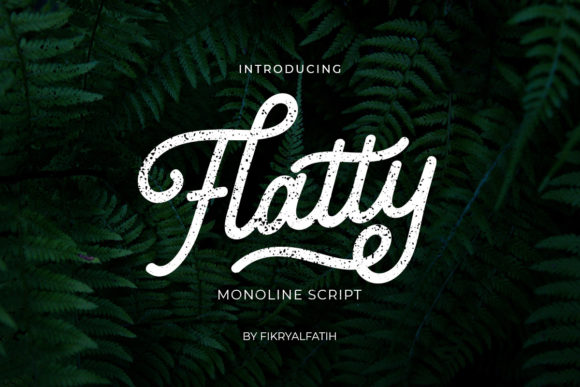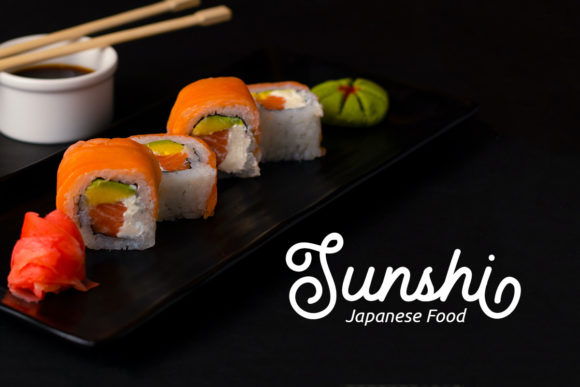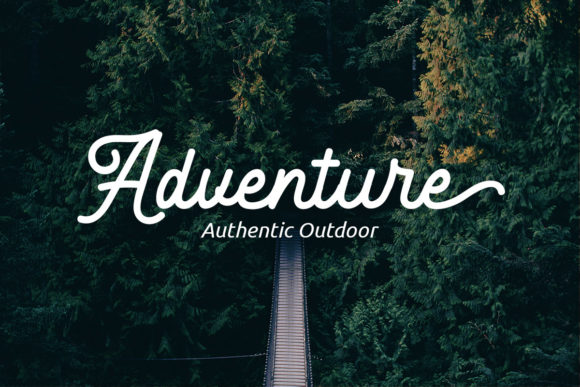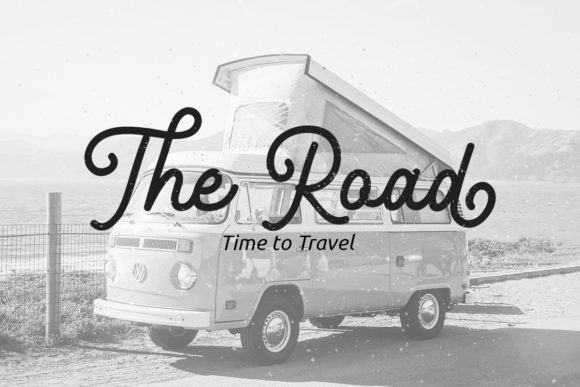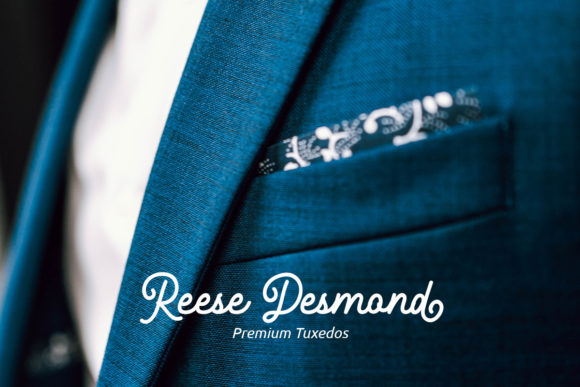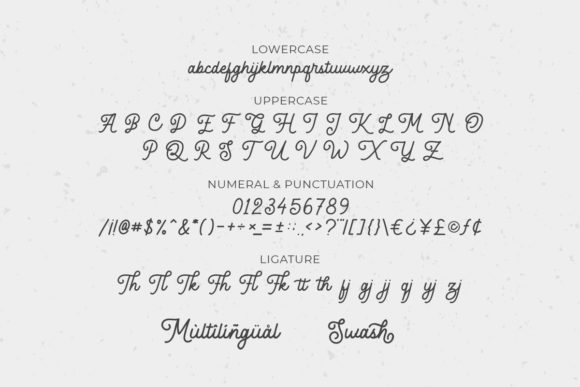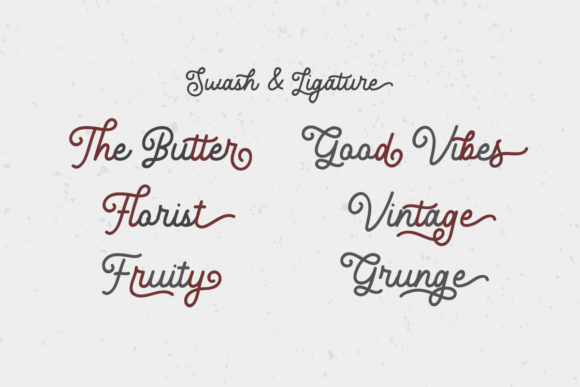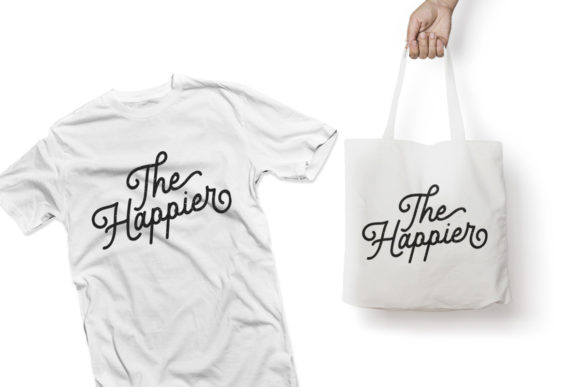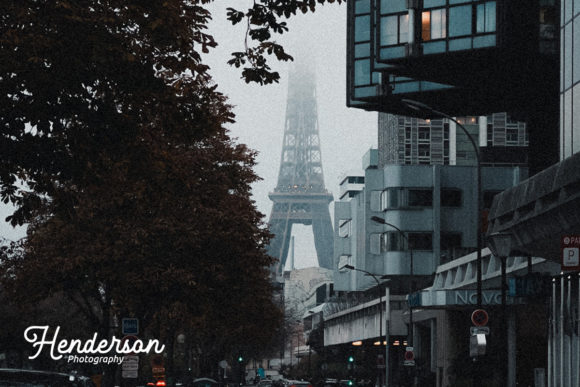
Flatty Monoline Font
About Flatty Monoline Font
Flatty Monoline is a beautiful monoline script font, perfect for logo design, branding, clothing design, signage, posters, wedding invitations, and so much more!
This is a unique monoline. You can use this font to create awesome logos or whatever you want. This font is PUA encoded, which means you can access all of the glyphs and swashes with ease!